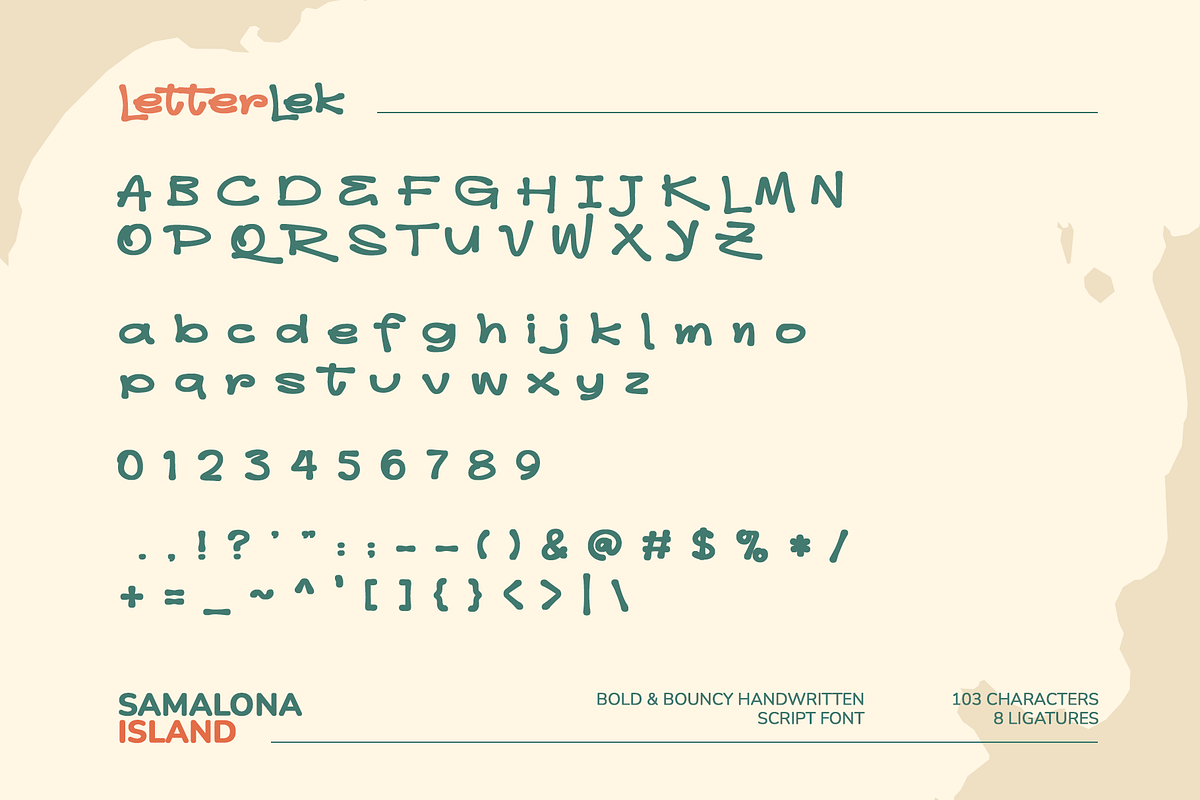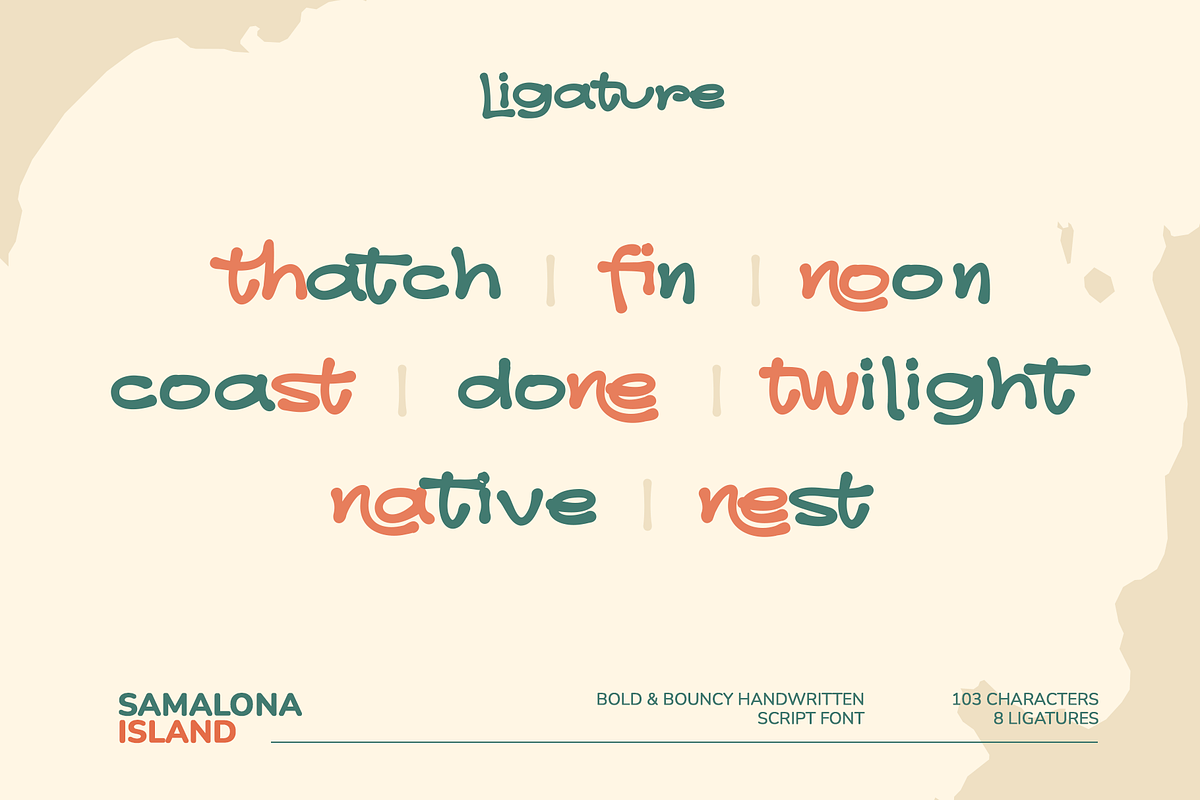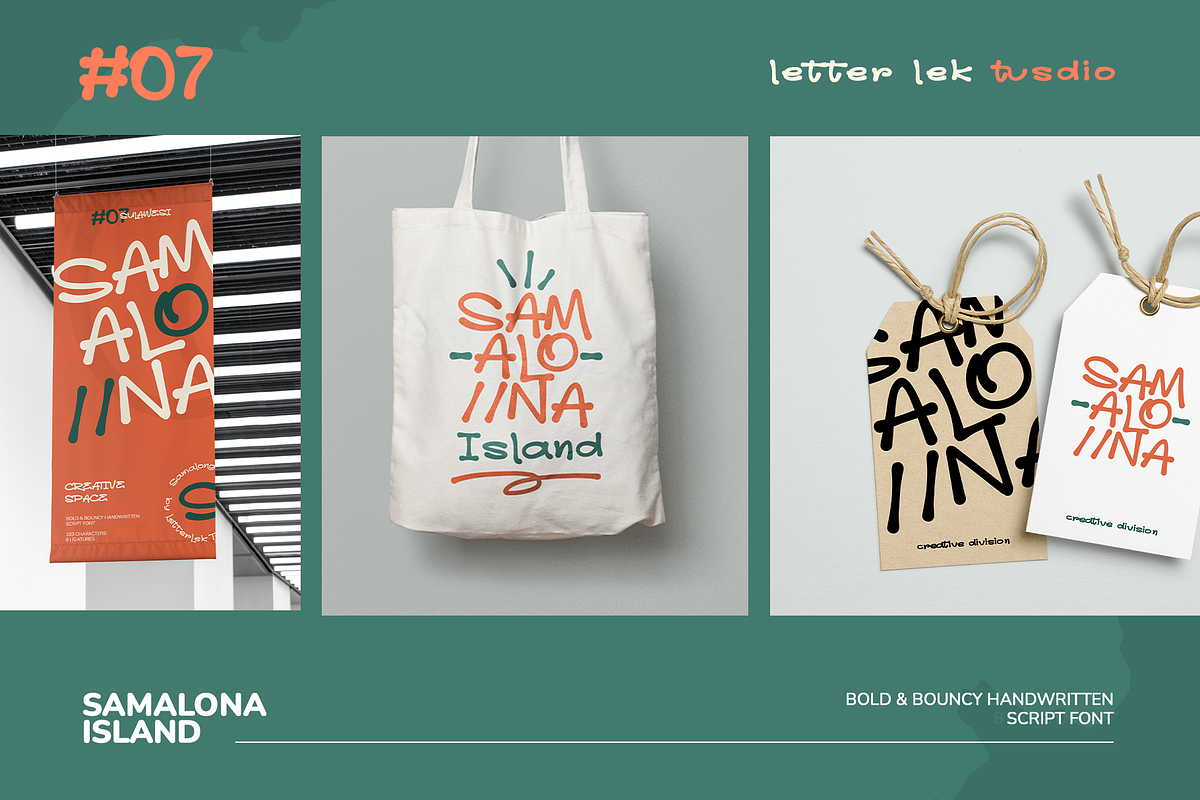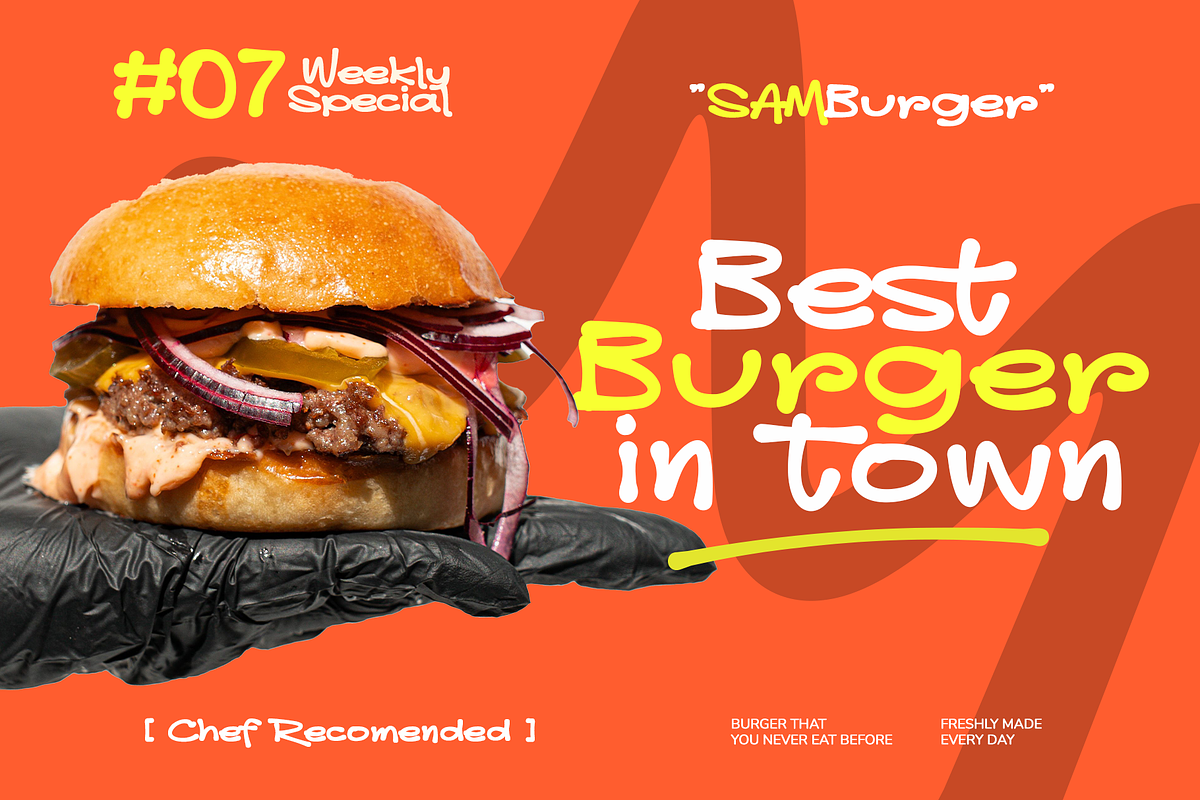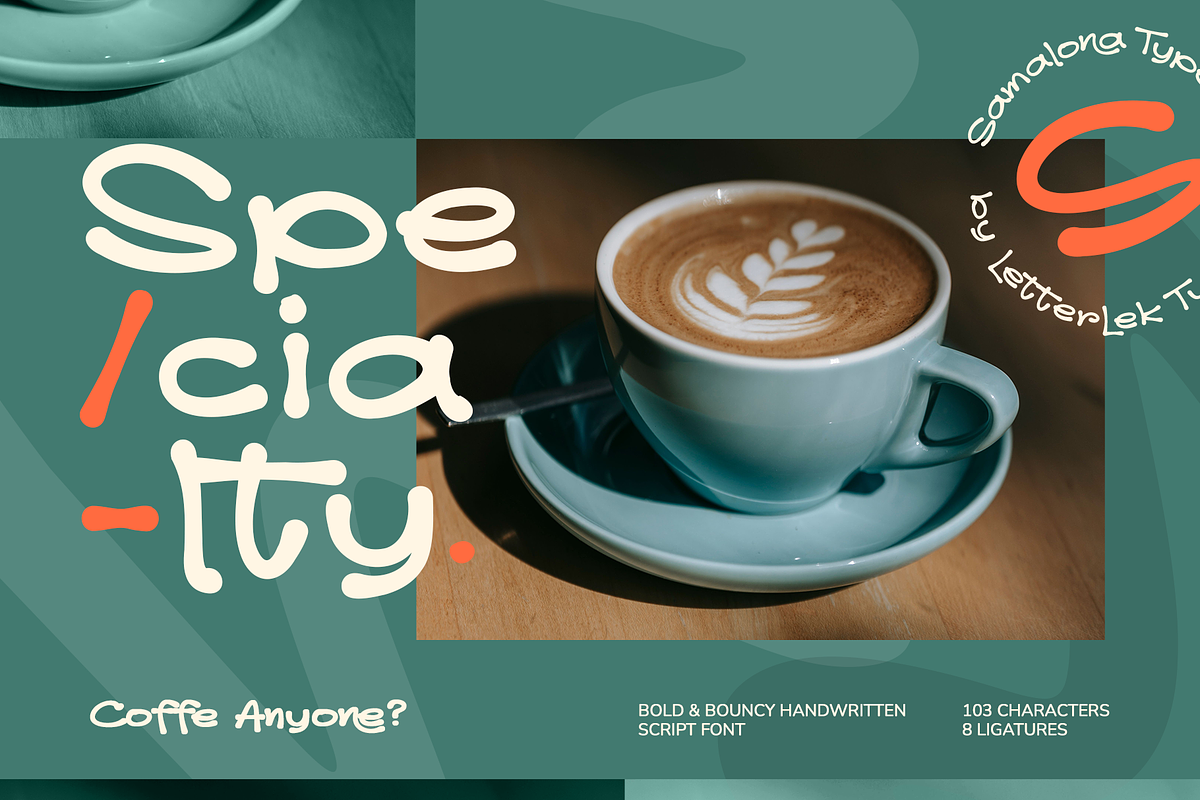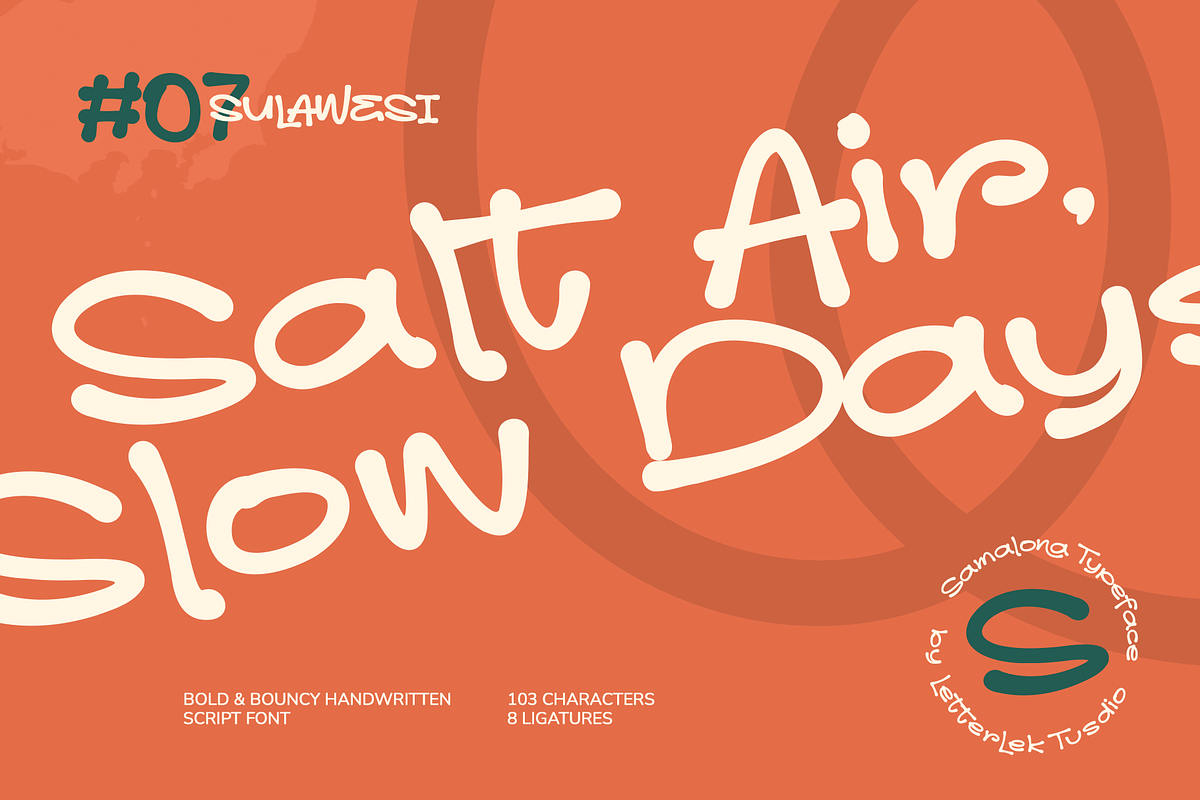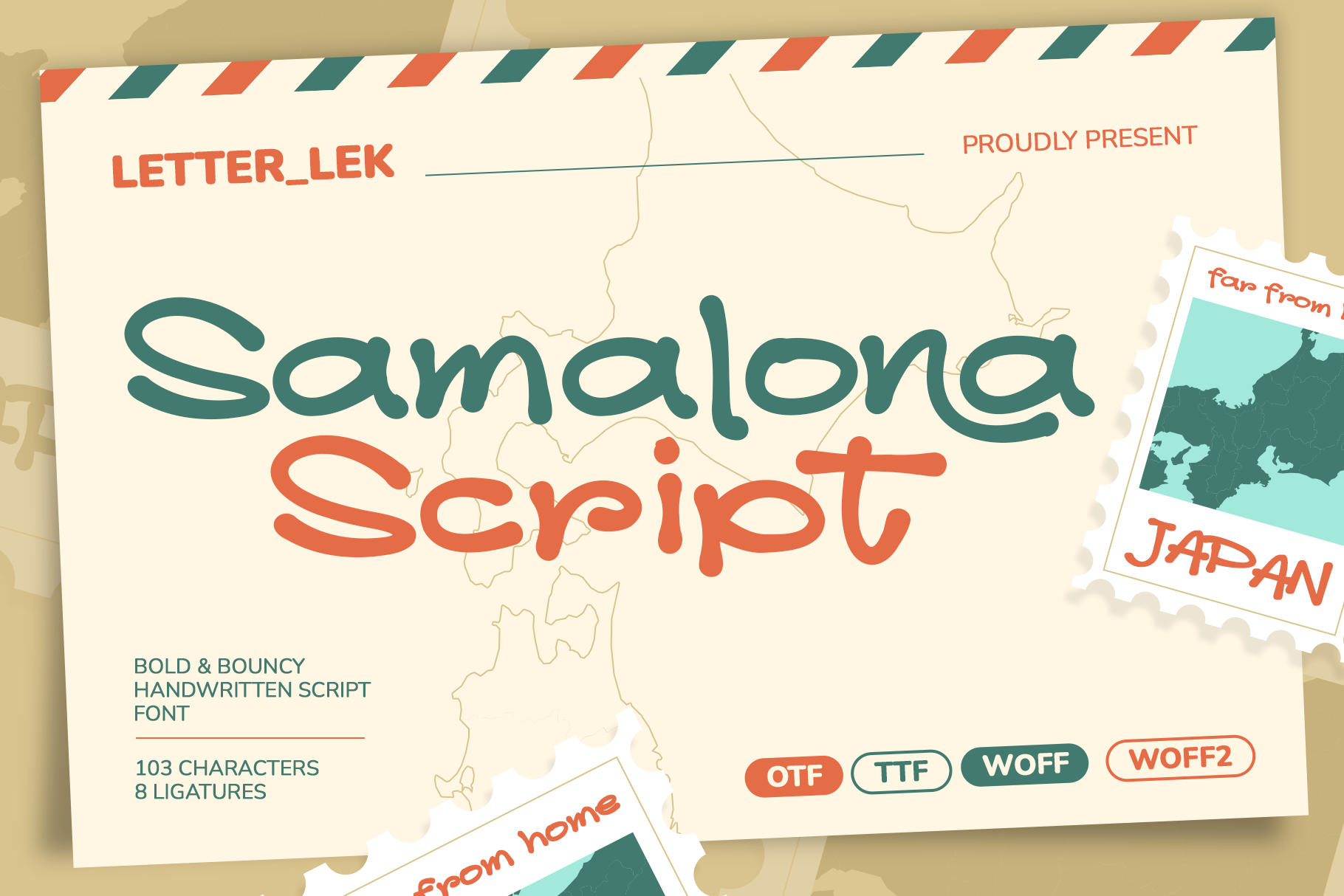
Samalona Handwritten Script Font
Samalona Island is a bold and bouncy handwritten script font with a playful, hand-drawn
character. Thick, rounded strokes and a slightly wobbly baseline give it a warm,
friendly personality — like something scribbled on a postcard from a trip you didn't
want to end.
The font includes 8 custom ligatures (th, fin, oo, oa, ne, wi, ti, es and similar letter
pairs) that connect naturally, so your headlines and short phrases flow like real
handwriting instead of stiff, evenly-spaced type.
- Logos and brand names that need a fun, approachable feel
- Packaging and product labels (drinks, snacks, cosmetics)
- Posters, social media graphics and quote designs
- Apparel, tote bags, hang tags and merchandise
- Wedding or event signage that wants a relaxed, non-formal tone
- Uppercase & lowercase letters, numbers, and standard punctuation (103 characters)
- 8 contextual ligatures for a natural handwritten flow